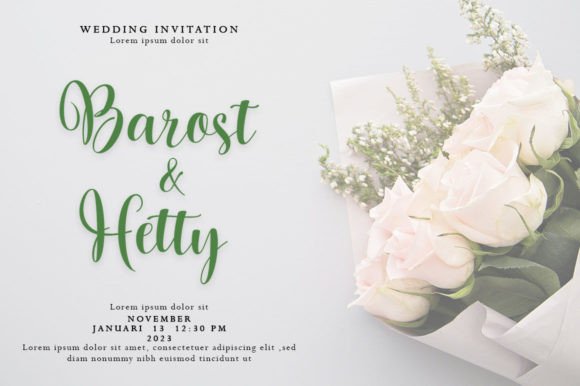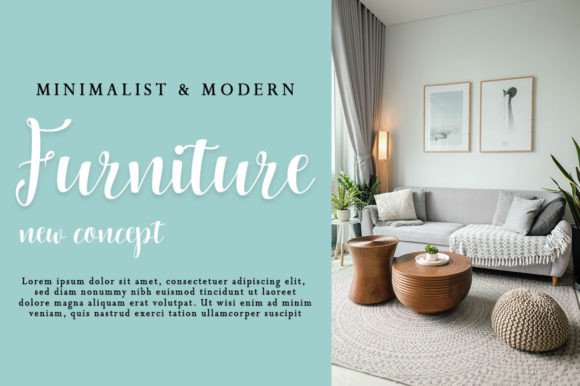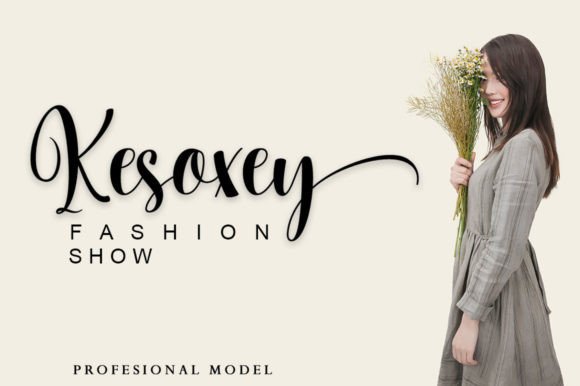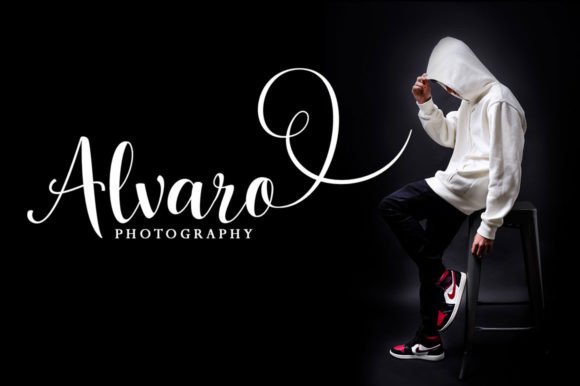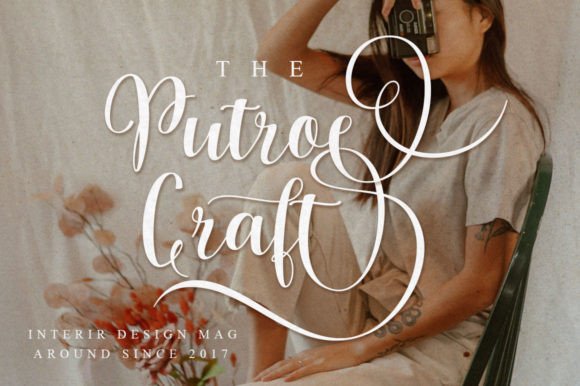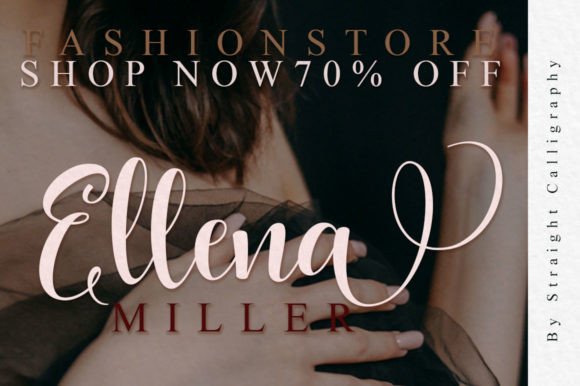
Introduction to Leonorde Font
Have you ever found yourself staring at a blank canvas, struggling to bring your creative vision to life? That’s where the perfect design resource comes in – a high-quality font that elevates your project and makes it truly special. For designers, the search for the ideal font can be a daunting task, but what if I told you there’s a stylish and elegant solution waiting for you?
Meet the Leonorde Font, a chic and sophisticated handwritten script font that’s about to become your go-to design companion. With its beautiful and well-balanced characters, Leonorde Font is the perfect match for a wide range of creative projects, from elegant invitations to high-end branding materials.
Discover the Power of Leonorde Font
Key Features of Leonorde Font
- High-quality design: Leonorde Font offers a sophisticated and elegant aesthetic, making it an excellent choice for creative projects.
- High-resolution design: Leonorde Font is designed at a high resolution, ensuring that it remains crisp and clear even when scaled up.
- Perfect for creative projects: This font is ideal for designers working on creative projects, such as branding, packaging, and editorial design.
Honest Review: Leonorde Font
As a designer, I’ve had the chance to try out many free fonts, but the Leonorde Font has left a lasting impression on me. I was blown away by the high quality of this font, which is perfect for any creative project that requires a professional touch.
Here are some of the things that work well with the Leonorde Font:
- Its clean and minimalist design makes it suitable for a wide range of applications, from logos to body text.
While the Leonorde Font is a great resource, there are some limitations to consider:
- The font may not be suitable for very small text sizes, as it can become difficult to read.
Overall, I’m thoroughly impressed with the Leonorde Font, and I would highly recommend it to any designer looking for a high-quality, free font to add to their design resource arsenal.
Leonorde Font is ideal for use in creative projects such as logos, business cards, brochures, and social media graphics. Its high-quality design makes it perfect for both personal and professional use.